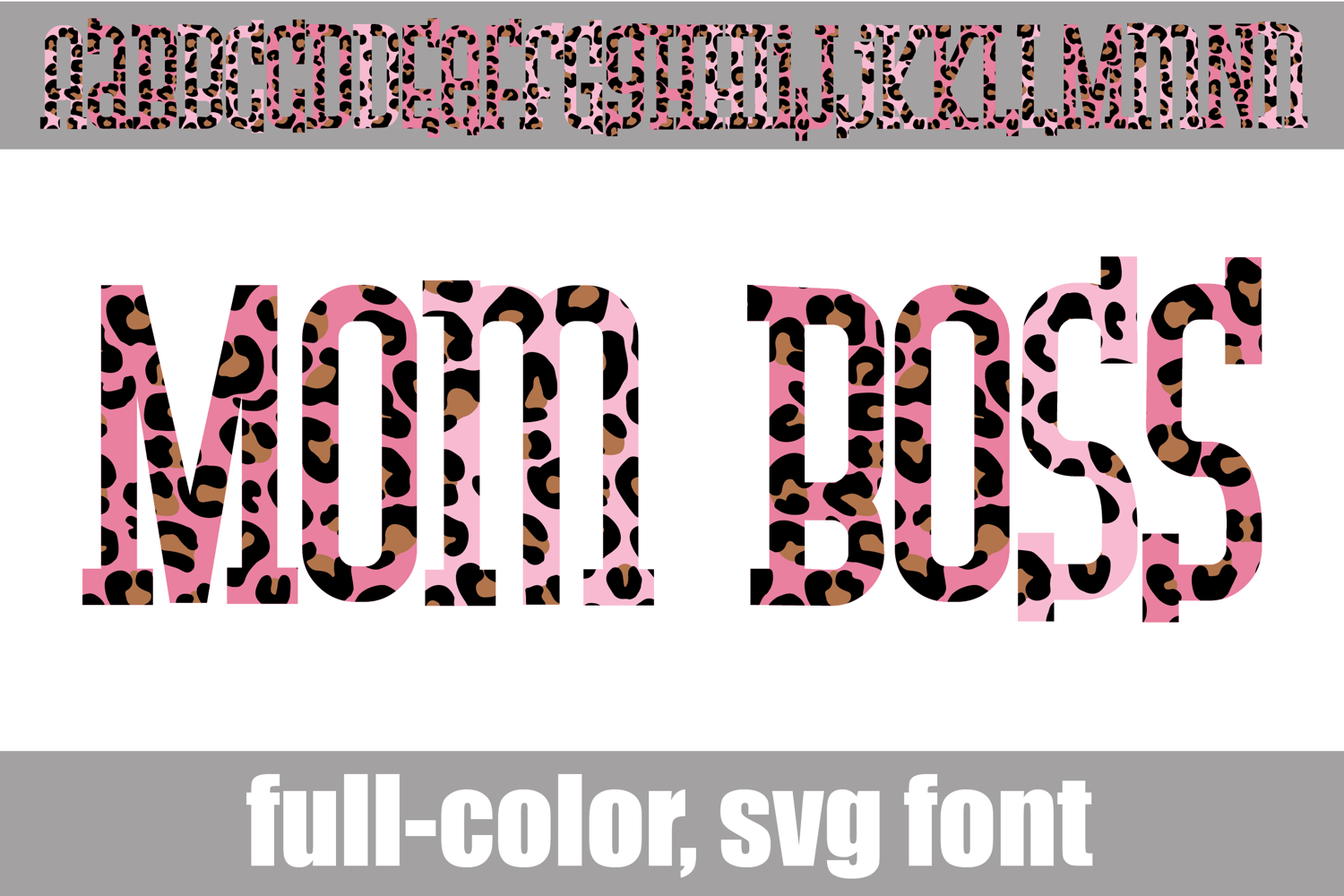
Mom Boss Color Font
This full-color, font is a serif wearing leopard print. There is an alt case of additional colors of each letter that you can access through your system's character map.